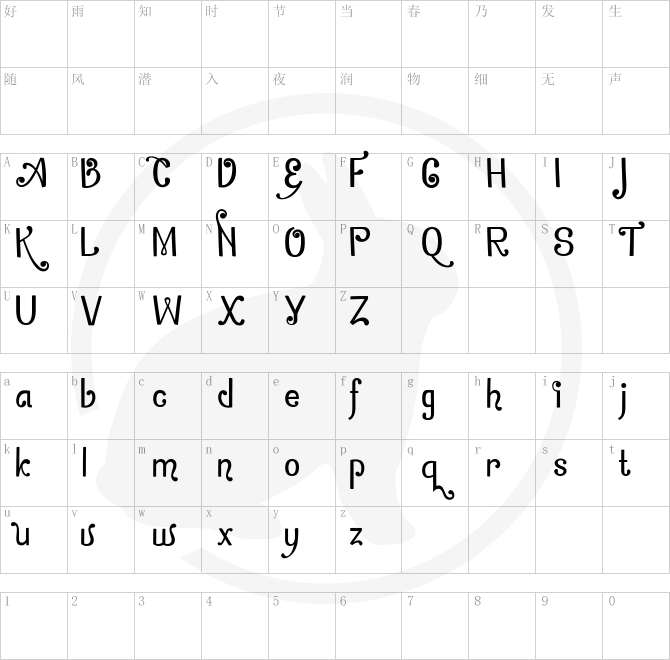
- Font Name:Zamrud & Khatulistiwa
Zamrud-Khatulistiwa.ttf is a very beautiful artistic font, Zamrud-Khatulistiwa.ttf is widely used in the design and printing of various books and pictures,Zamrud-Khatulistiwa.ttf has a strong visual impact,Zamrud-Khatulistiwa.ttf is a commonly used font in newspapers, magazines and books, and is used in posters, e-commerce Poster design, store design, logo design, font design and other fields.Zamrud-Khatulistiwa.